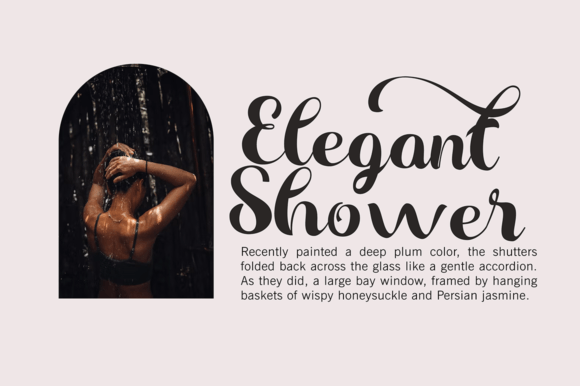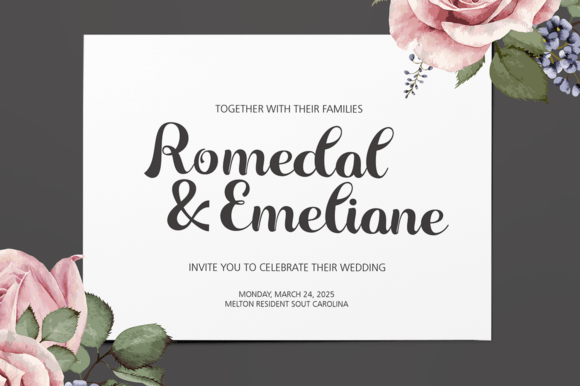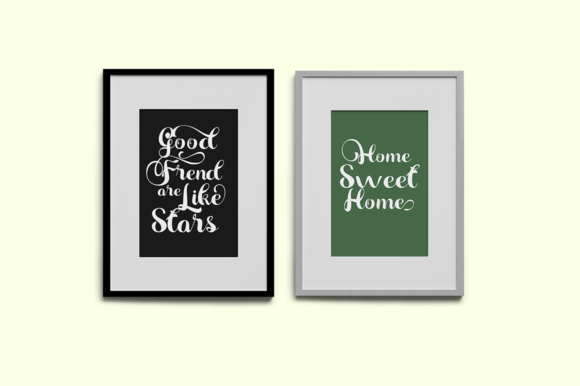
Introduction to Linsela Script Font
Linsela Script is an original handwritten font with an updated hand calligraphy model, with special glyphs that have been given a combination of fantasy and handwritten ink.
This font will look beautiful on wedding designs, branding materials, blog titles, quotes and invitations, business cards, and more This font is PUA encoded, which means you can access all of the glyphs and swashes with ease.
Key Features of Linsela Script Font
Why Choose Linsela Script Font?